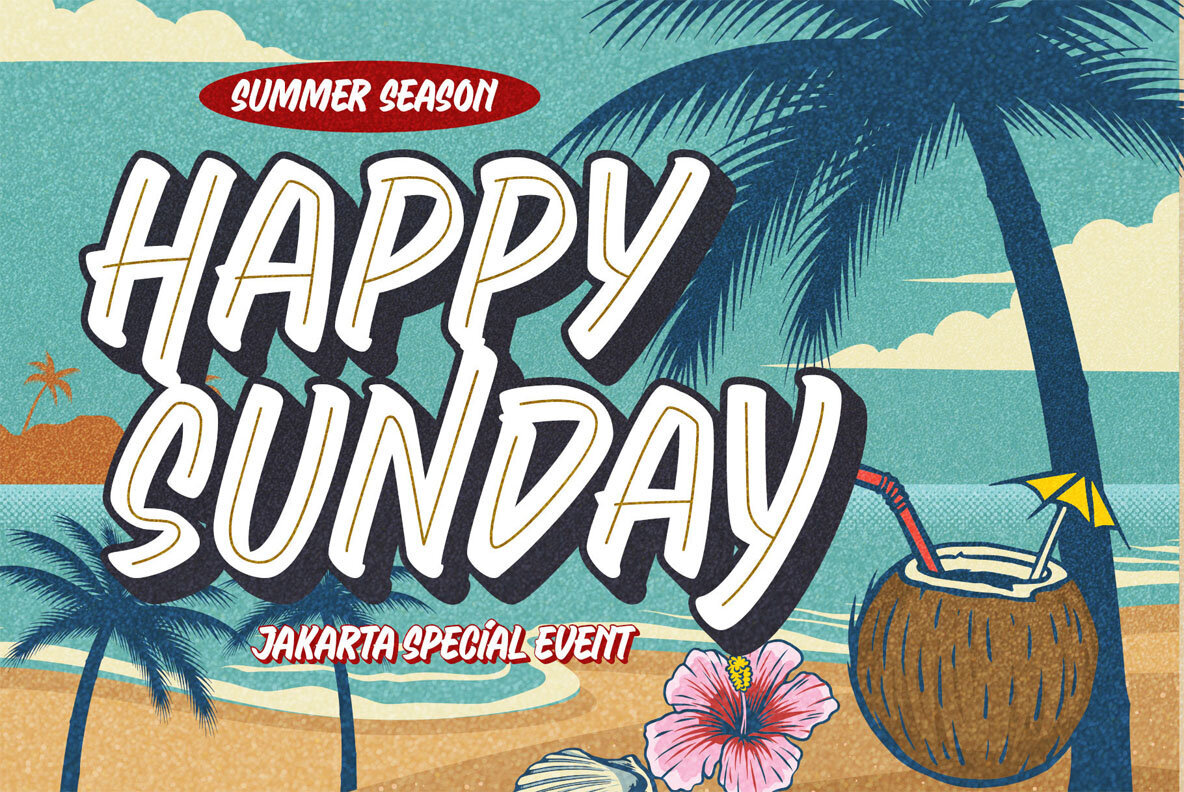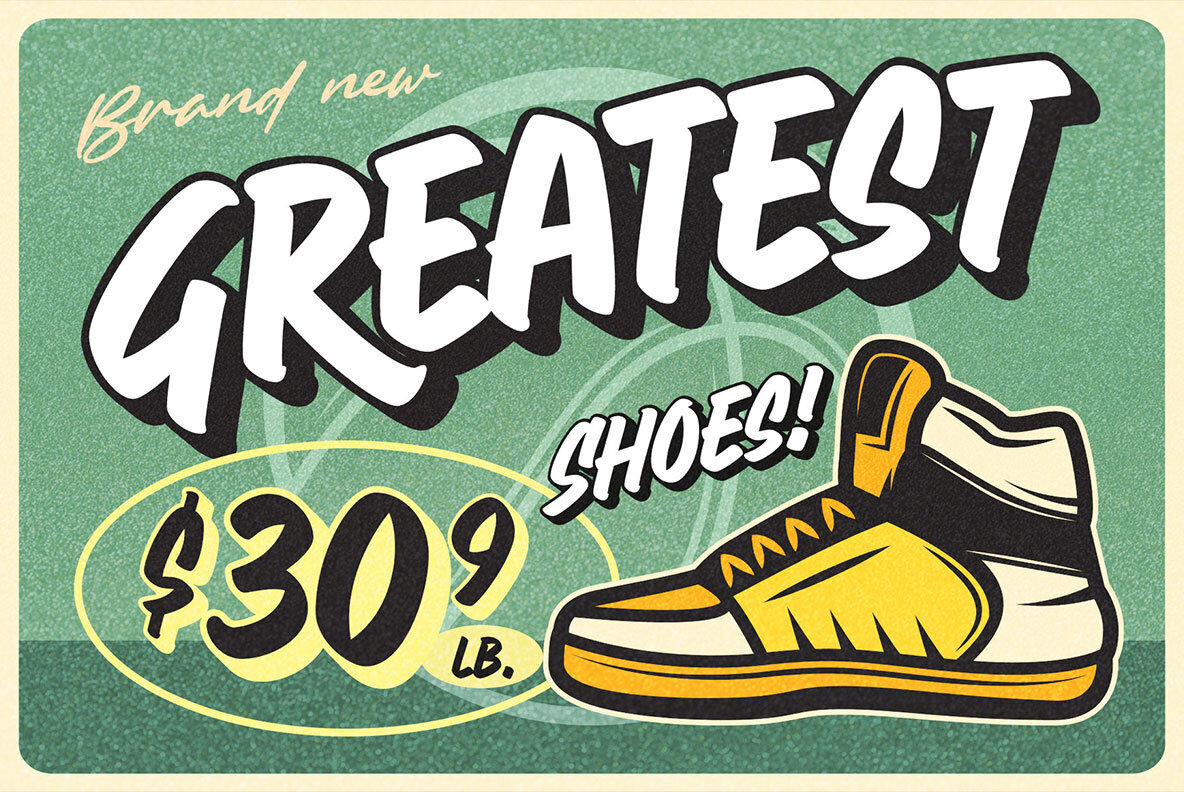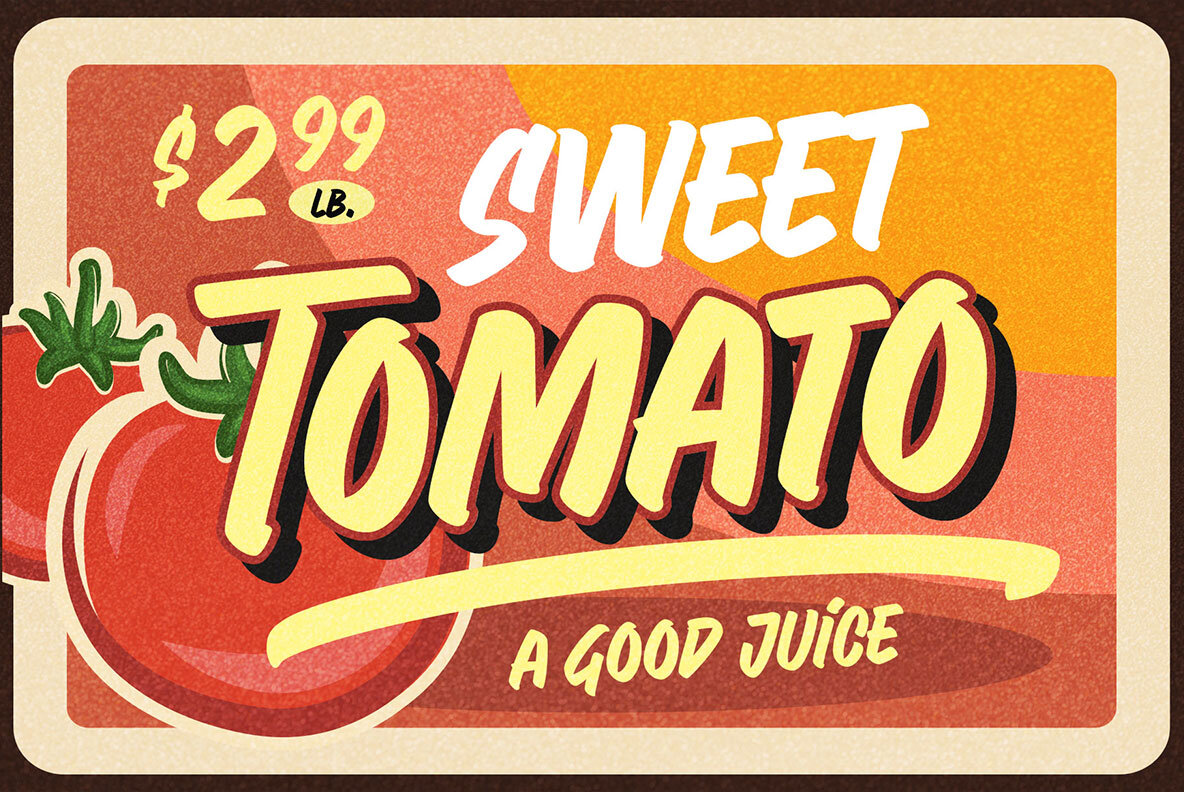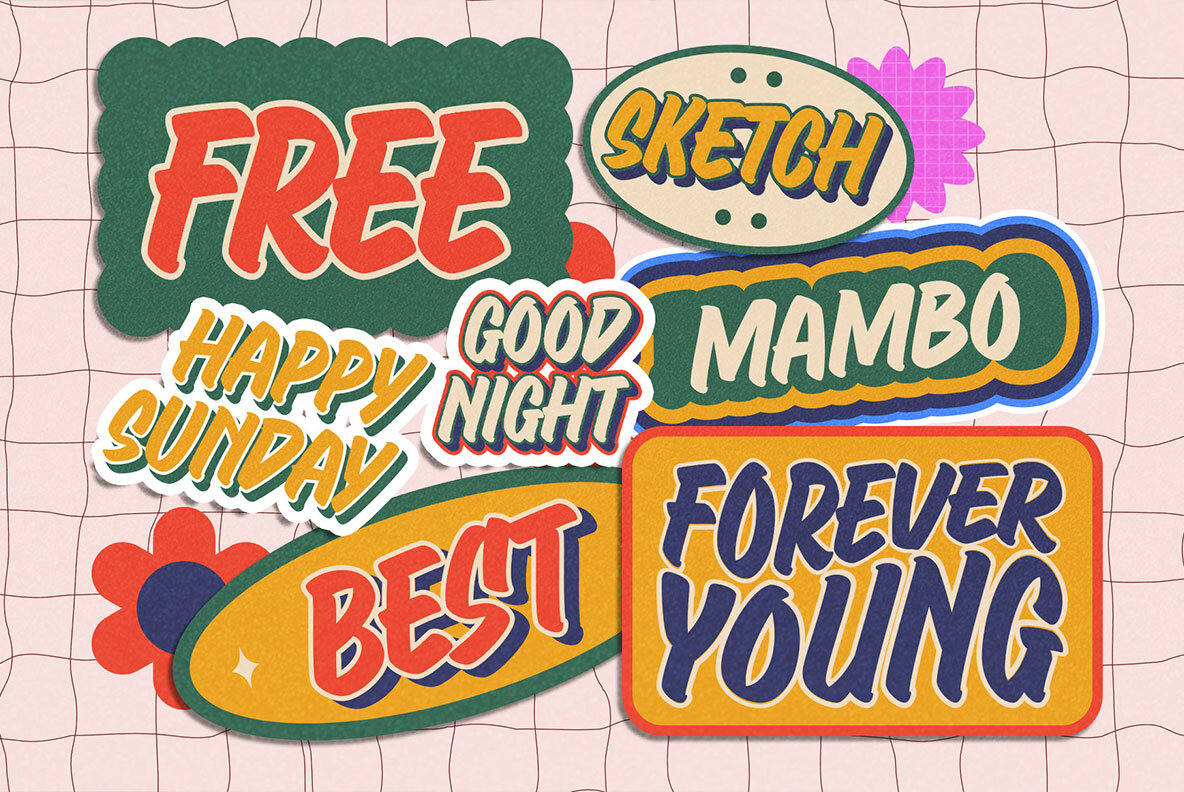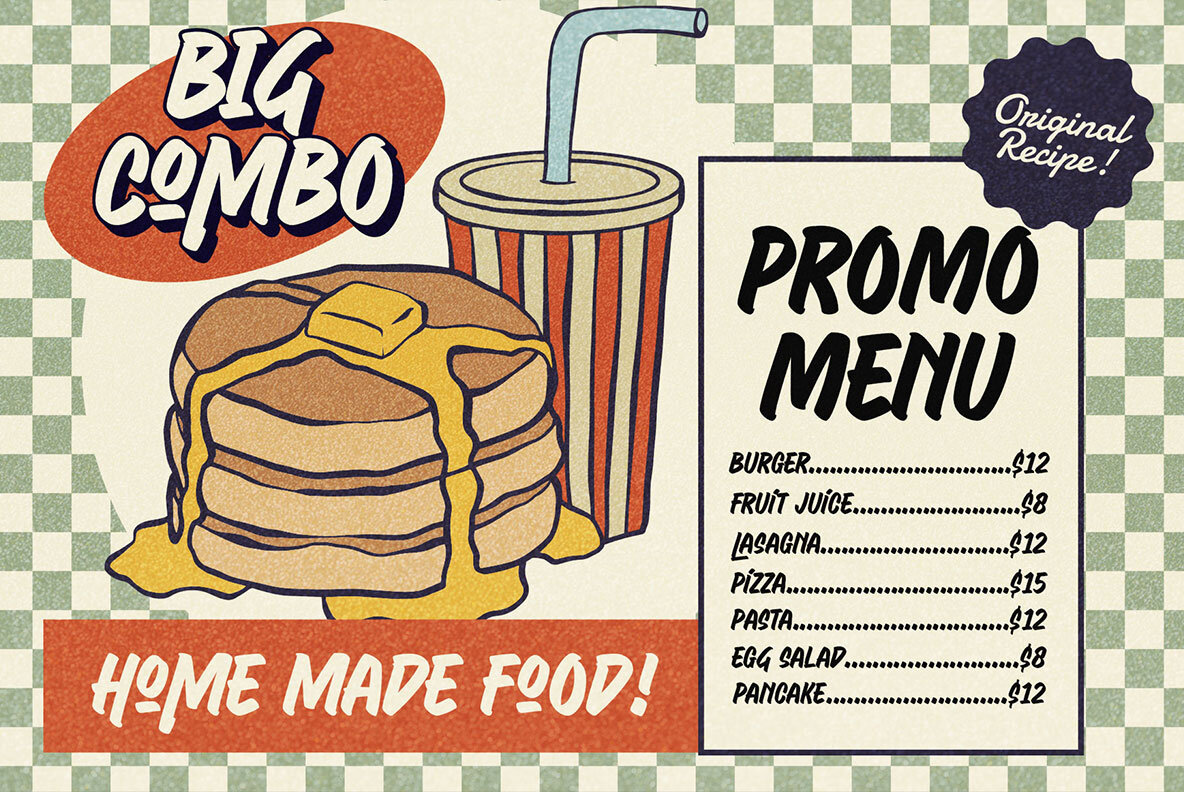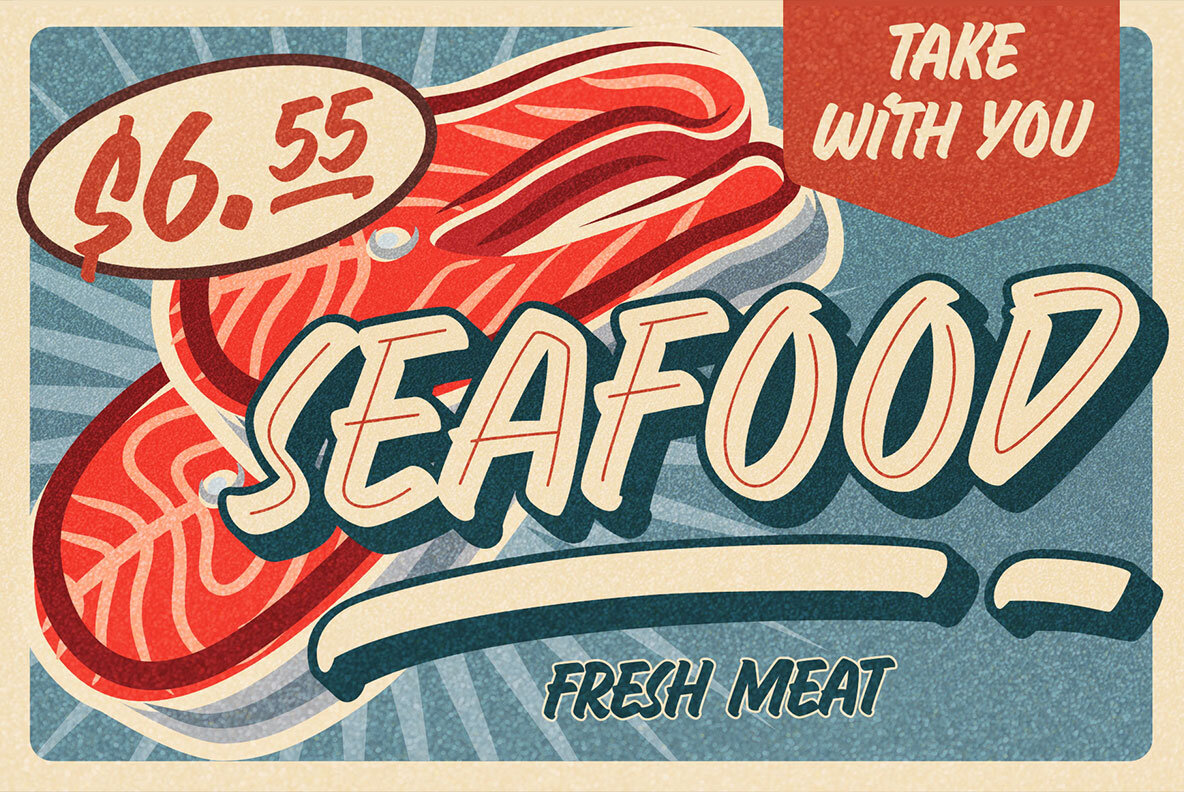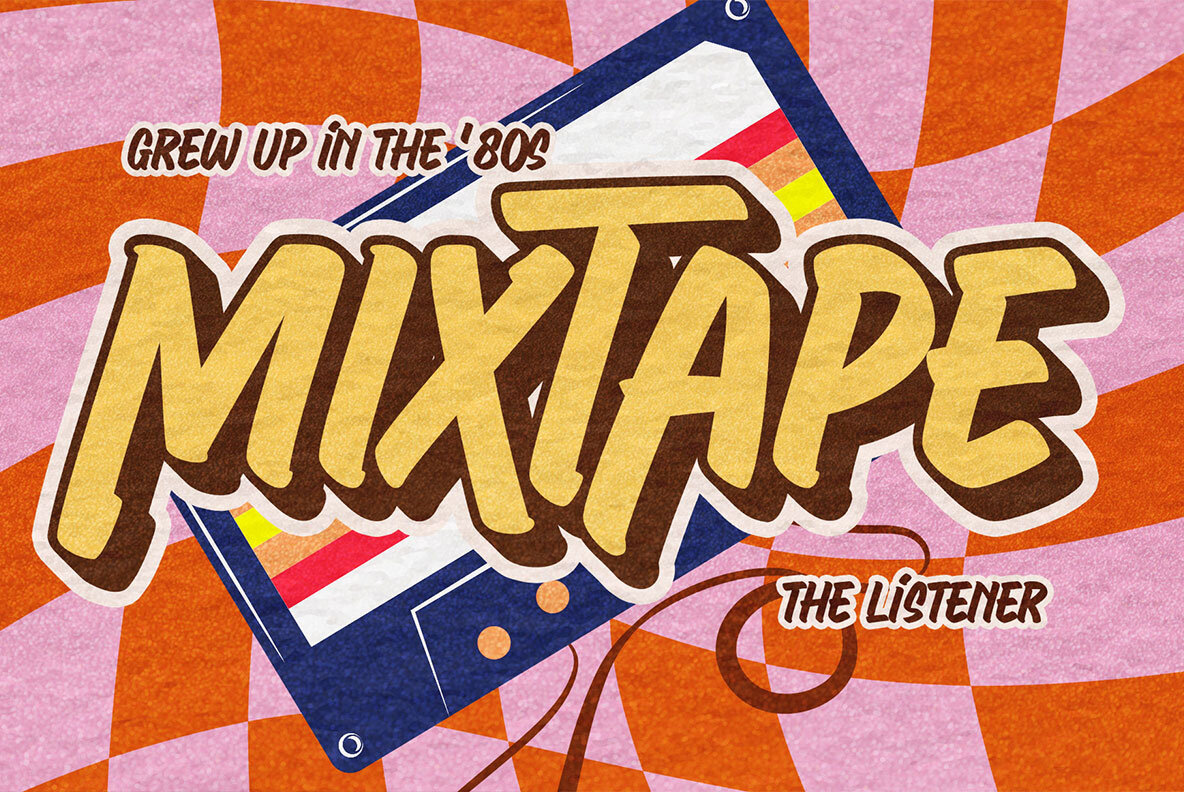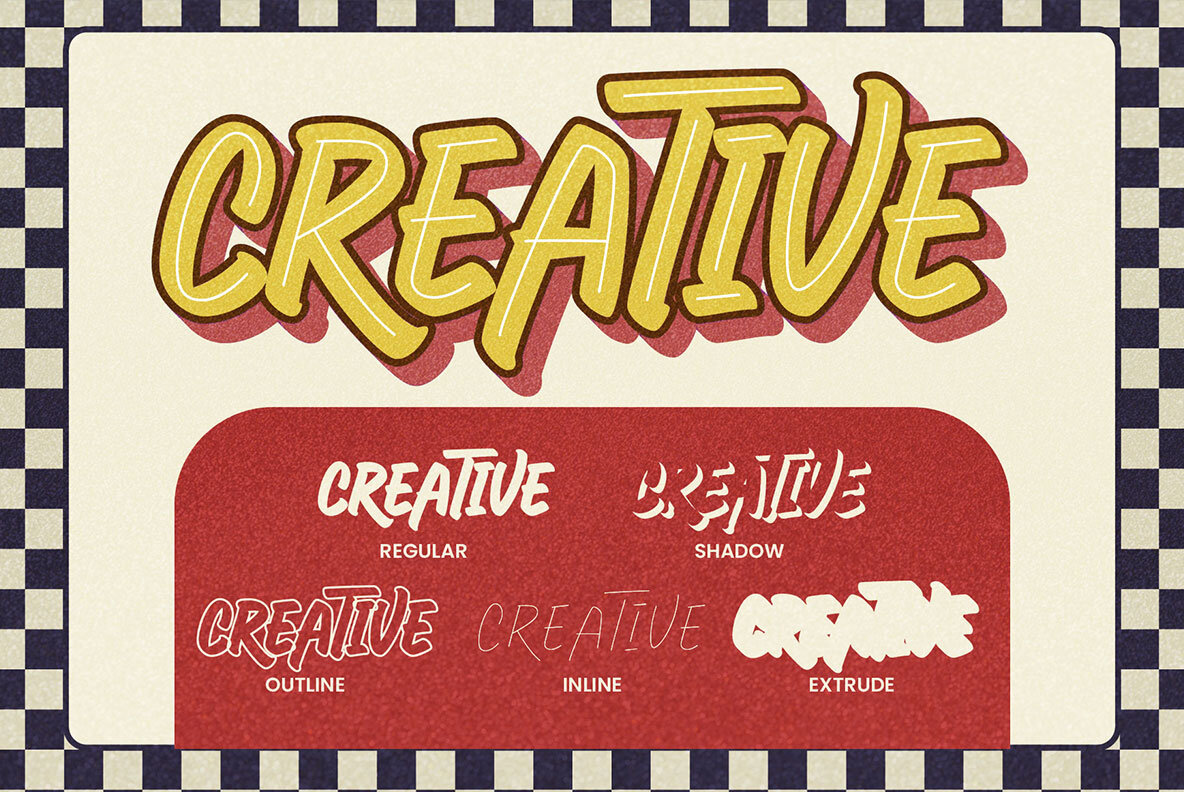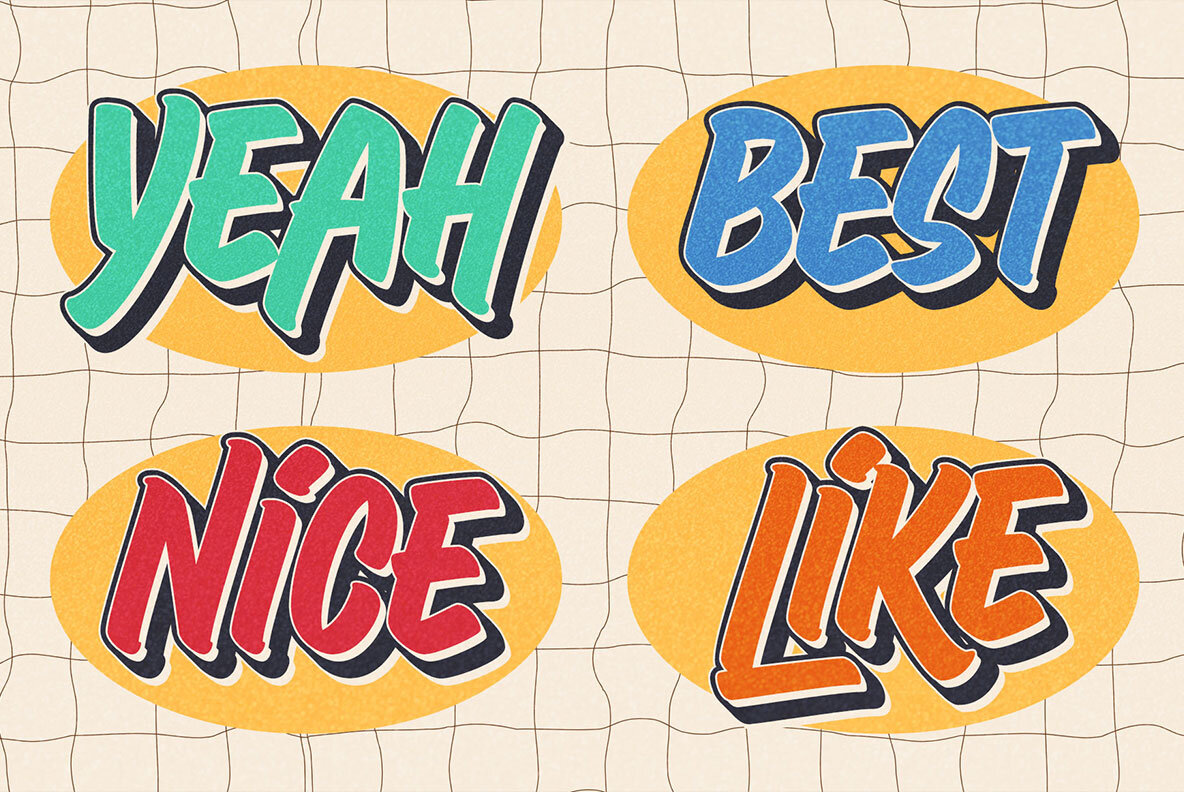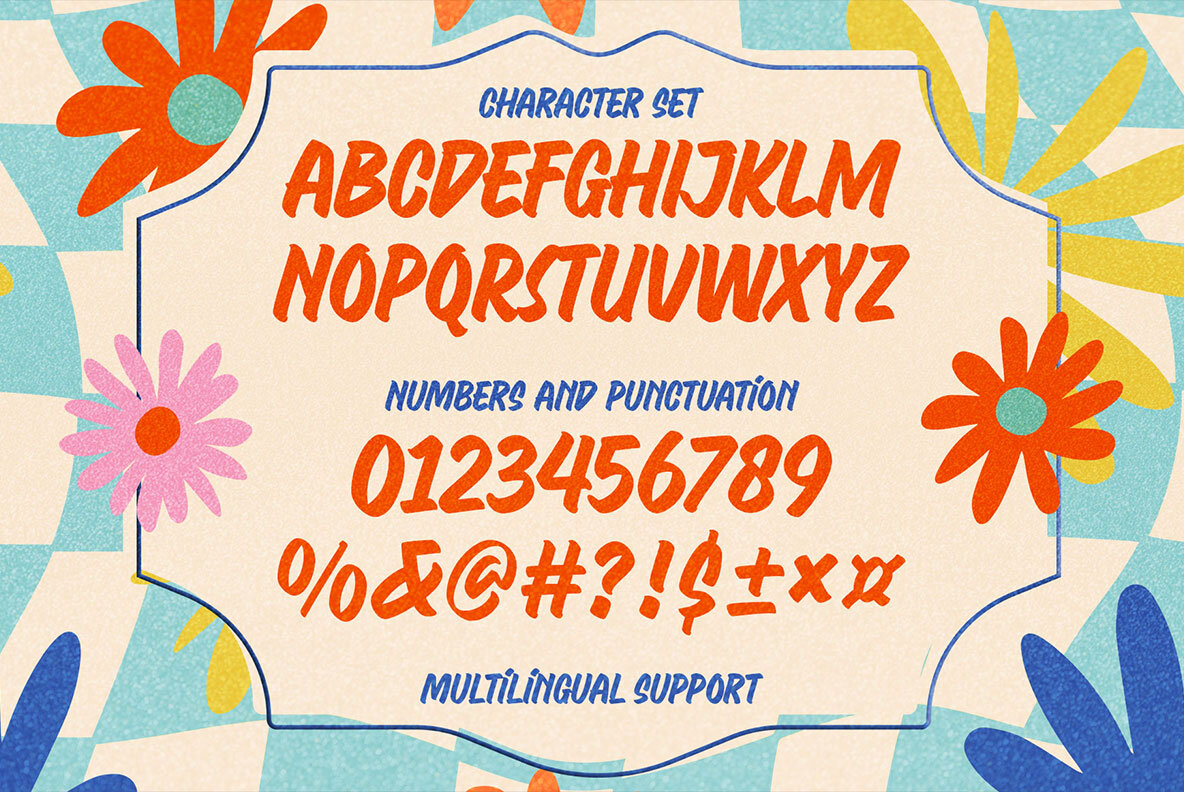
Signature Creation Font
Introducing "Signature Creation," a nostalgic display font inspired by vintage sign painting. Representing craftsmanship, creativity, and movement. Immerse yourself in a wave of nostalgia with this font set, available in 5 distinct styles that harmoniously interact as layers: Regular, Inline, Shadow, Outline, and Extrude. Signature Creation boasts a contemporary aesthetic and seamless design. Complete with swashes and special characters, Signature Creation infuses a playful feel into your designs. Unleash your creativity by effortlessly applying this layered font to diverse projects like posters, flyers, logos, signboards, apparel, motion graphics, and beyond. Elevate your artistic expression with the diverse possibilities this layered font unlocks. What you'll get: